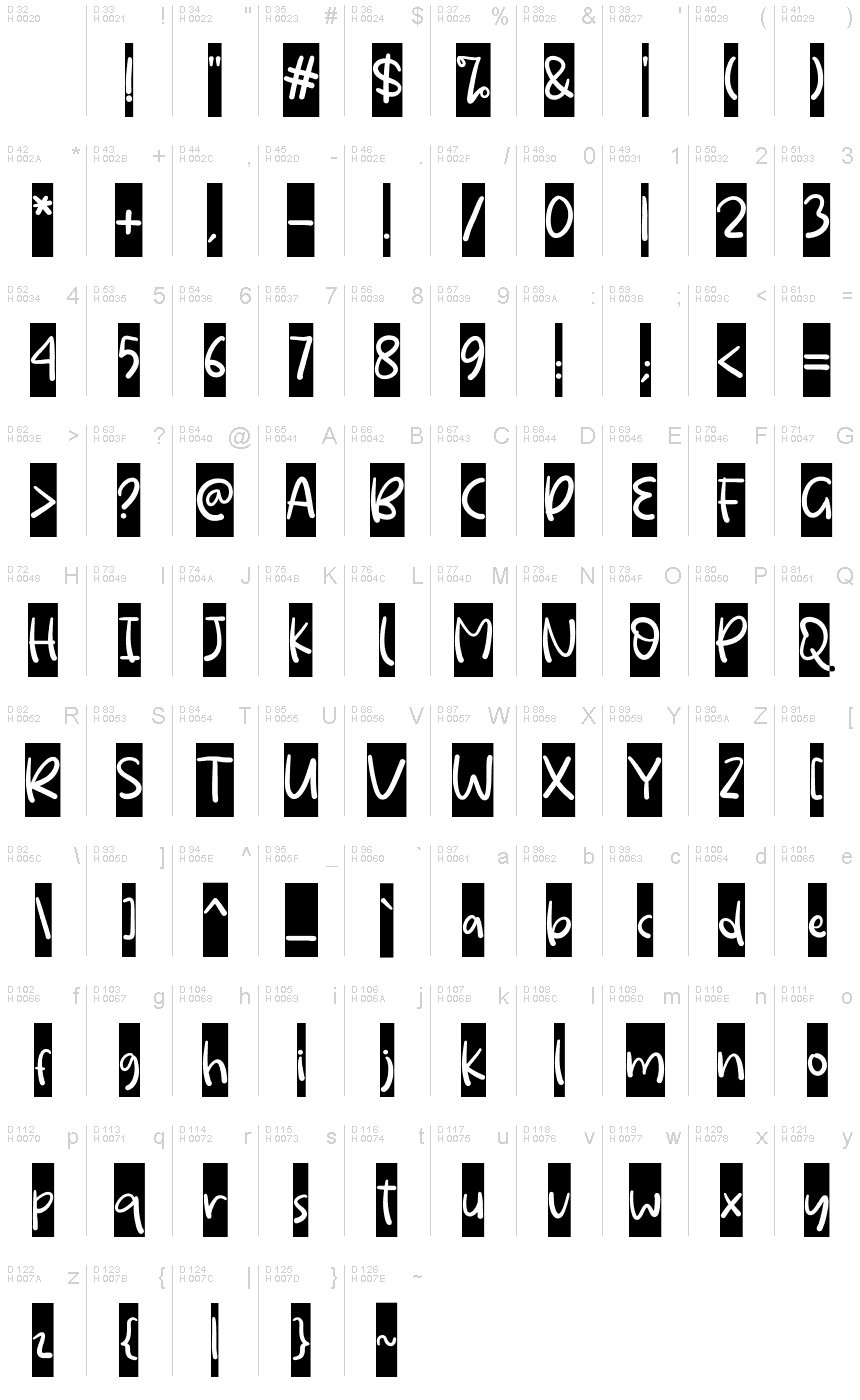
Fantasy kids Inverse
Fantasy kids Inverse is a charming and playful handwritten font designed by Erlina Graphic. Its semi-light weight gives it an airy feel, making it perfect for whimsical projects like children's books, greeting cards, and invitations. This font stands out with its unique style that will make your designs look creative and imaginative. Whether you're designing a poster for a kid's birthday party or creating graphics for a toy store, Fantasy kids Inverse is the perfect typeface to add some fun and personality to your project. With its playful vibe, this font is sure to capture the hearts of both adults and kids alike!